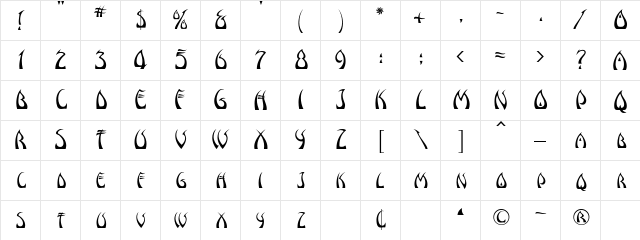
Windswept MF Regular
Design Context for Windswept MF
Windswept MF is a composed and adaptable typeface that performs quietly and consistently across a wide range of design contexts.